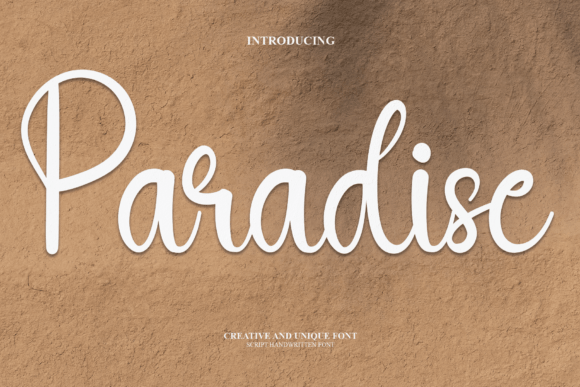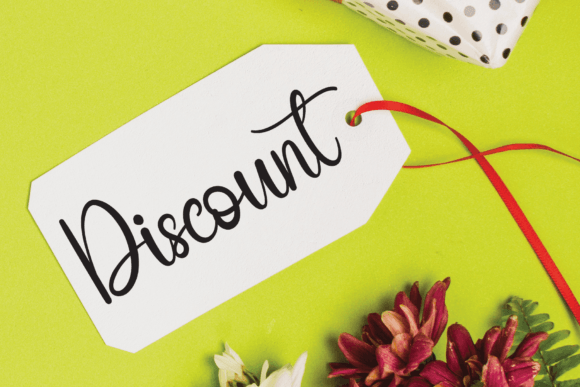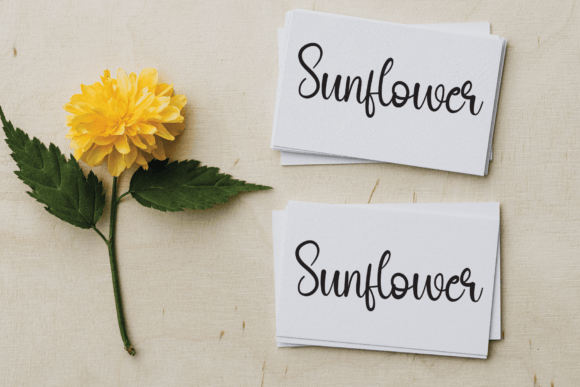
Paradise Font
“Paradise” is a stunning script font that effortlessly combines modernity and uniqueness with a natural writing style. This font offers a wealth of creative possibilities, allowing you to design beautiful and impactful typographic elements across various applications, including branding, web design, editorial work, prints, crafts, and quotes.
The modern and distinctive shape of “Paradise” brings a contemporary edge to your designs. Its natural writing style lends an authentic and organic feel, making it a versatile choice for a wide array of creative projects. Whether you’re crafting logotypes, designing wedding invitations, creating romantic cards, labels, packaging, or adding a personalized touch to names, “Paradise” introduces an element of elegance and charm.
The flexibility of “Paradise” shines through as it seamlessly adapts to different design contexts. It excels in crafting memorable and expressive logotypes, leaving a lasting impression on your audience. Its allure makes it especially suitable for designing wedding invitations, where a sense of sophistication and uniqueness is highly valued.
“Paradise” effortlessly breathes life into your most creative ideas. From the world of branding to the intricacies of crafting romantic cards, this font adds a special and refined touch to your projects. Witness how it transforms your designs, enhancing their visual appeal and authentically expressing your artistic vision.
Embrace the versatility and beauty of “Paradise” as you embark on your creative journey. Whether you’re working on digital platforms or tangible items, this font stands as a reliable companion, poised to elevate your typographic designs to new levels of sophistication and artistry.